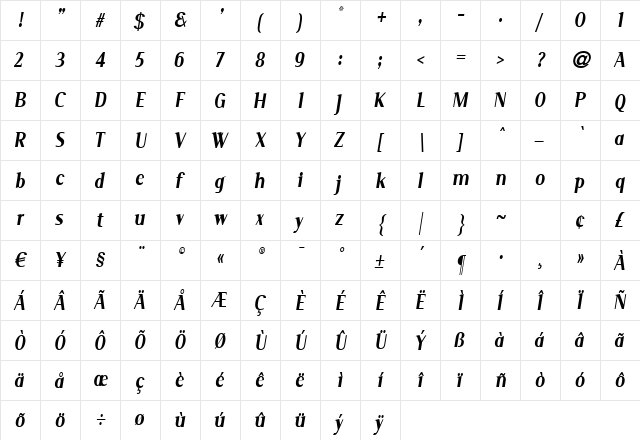
Serif Narrow Italic Font Preview
Design Context for Serif Typeface
Serif carries the refined structure of traditional serif typography, with bracketed terminals and considered proportions that communicate credibility and craft. The dynamic lean of this cut emphasises speed and emphasis in any layout. The condensed width makes it efficient for tight spaces without sacrificing legibility.
Pro Tip: Set Serif with slightly loose tracking in headlines to let each letterform's detail read clearly at display sizes.